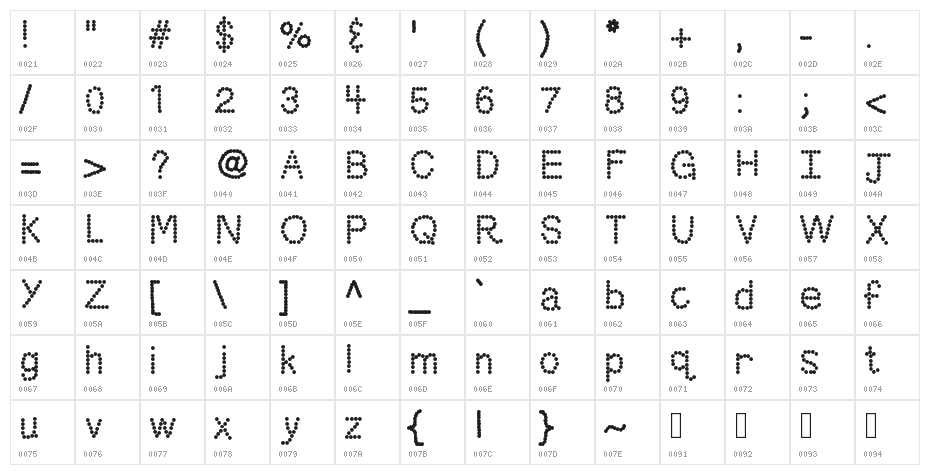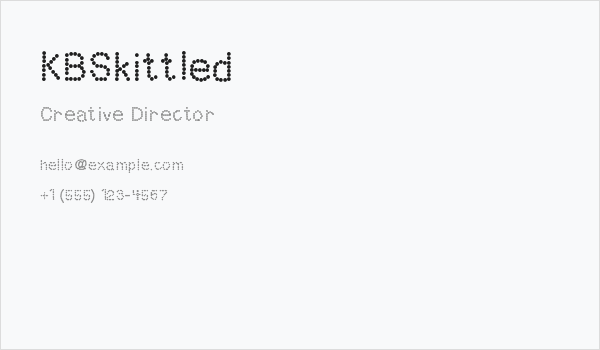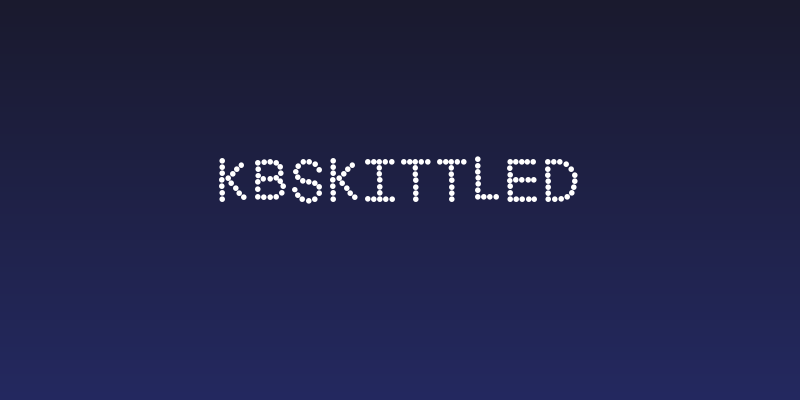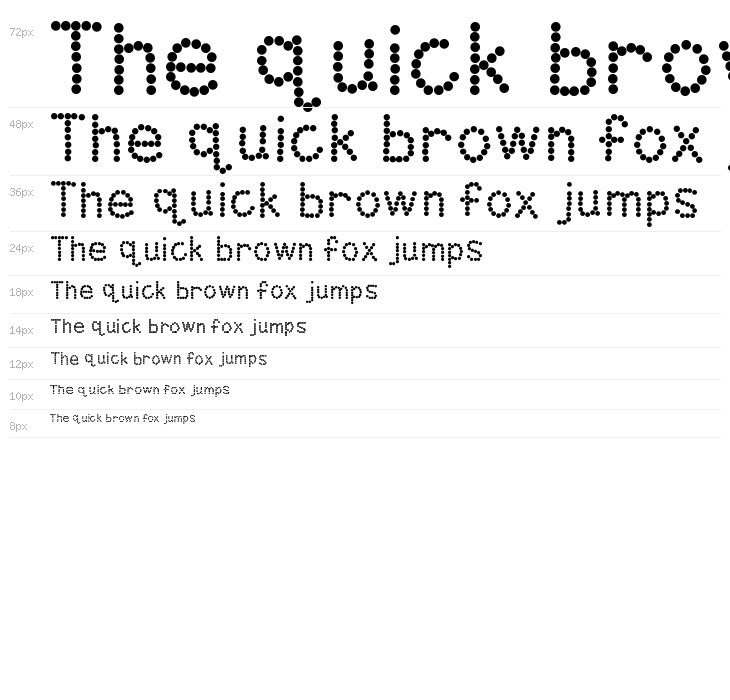
KBSkittled Font
KBSkittled Description
This playful and unique font is composed entirely of small, evenly spaced dots forming each character. The design gives a dotted, pixelated appearance that is both modern and whimsical. Each letter and number is clearly distinguishable, maintaining readability despite the unconventional style. The font's structure is consistent, with uniform dot sizes and spacing, creating a cohesive look across all characters. This dotted style adds a fun and creative touch, making it ideal for projects that require a lighthearted or innovative feel. The font includes a full set of uppercase and lowercase letters, numbers, and a variety of special characters, ensuring versatility in its application.